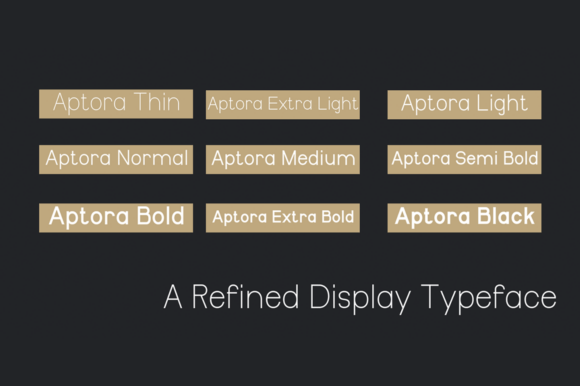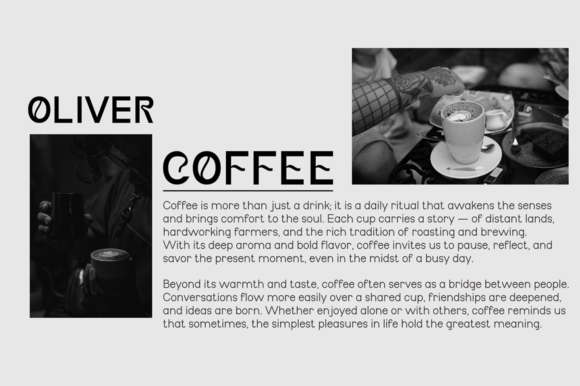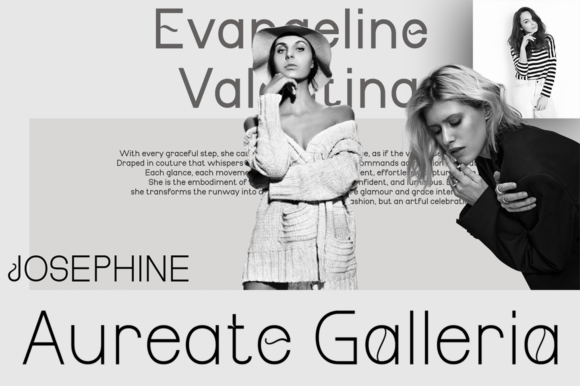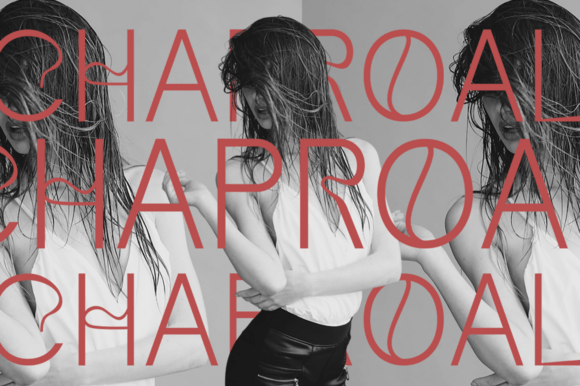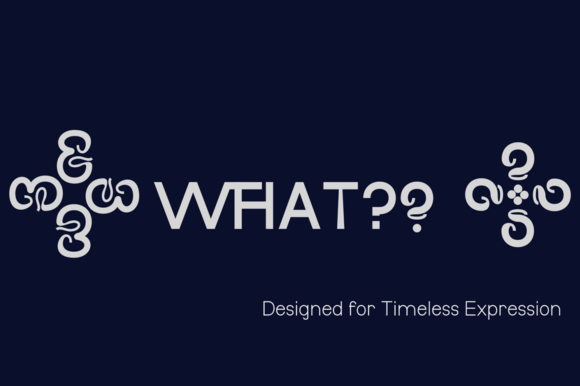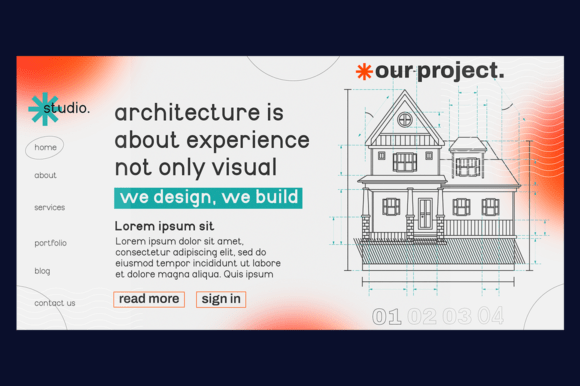
Aptora Font: Elevate Your Designs with Timeless Elegance
In the world of typography, a font can make or break a design. Aptora, a modern display typeface, has been crafted to provide a timeless expression that elevates your creative projects. With its clean, elegant lines and exceptional versatility, Aptora is the perfect choice for designers and crafters looking for a sophisticated and expressive touch.
The Design Philosophy Behind Aptora
Aptora’s design philosophy revolves around providing a refined look without sacrificing personality. The font features 9 carefully designed weights, ranging from Thin to Black, offering maximum flexibility for a wide range of creative needs. This extensive range of weights allows designers to experiment with different styles and tones, ensuring that their message is conveyed with precision and elegance.
Key Features of Aptora Font
- Clean and Elegant Lines: Aptora’s lines are meticulously crafted to provide a clean and elegant look, making it perfect for branding, editorial layouts, and posters.
- Exceptional Versatility: With 9 weights to choose from, Aptora offers maximum flexibility for a wide range of creative needs, from digital applications to print projects.
- Timeless Expression: Aptora’s design ensures that your message remains relevant and stylish, even as design trends evolve.
Aptora’s versatility makes it an excellent choice for various design projects, including:
- Branding: Use Aptora to create a sophisticated and memorable brand identity that stands out from the competition.
- Editorial Layouts: Aptora’s clean lines and elegant style make it perfect for editorial layouts, such as magazines, newspapers, and books.
- Posters: Create eye-catching posters with Aptora’s bold and expressive weights, guaranteed to grab attention.
- Digital Applications: Aptora’s digital-friendly design ensures that your message looks great on screens, from websites to mobile apps.
Why Choose Aptora Font?
With so many fonts available, why choose Aptora? Here are just a few reasons:
- Unique Expression: Aptora’s design provides a unique and distinctive expression that sets your design apart from others.
- High-Quality Design: Aptora’s 9 weights ensure that your design looks great in any context, from print to digital.
- Easy to Read: Aptora’s clean lines and elegant style make it easy to read, even at small sizes.
Tips for Using Aptora Font
To get the most out of Aptora, here are some tips:
- Experiment with Weights: Try out different weights to find the perfect balance for your design.
- Mix and Match: Combine Aptora with other fonts to create a unique and eye-catching design.
- Pay Attention to Kerning: Make sure to adjust kerning to ensure that your text looks professional and polished.
Aptora Font is a powerful tool for designers and crafters looking to elevate their creative projects. With its clean, elegant lines, exceptional versatility, and timeless expression, Aptora is the perfect choice for a wide range of design applications. Whether you’re working on branding, editorial layouts, posters, or digital applications, Aptora delivers a refined look without sacrificing personality.